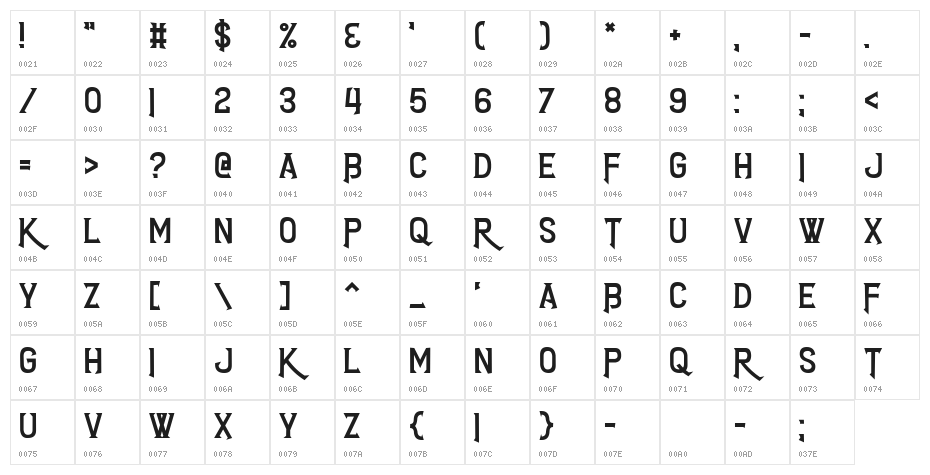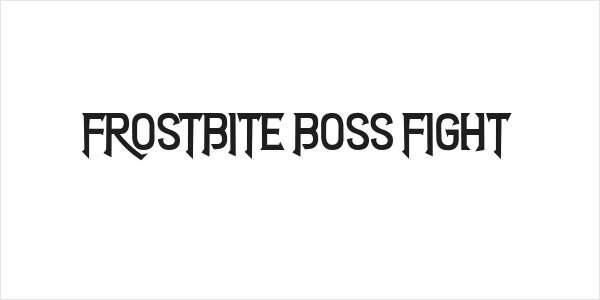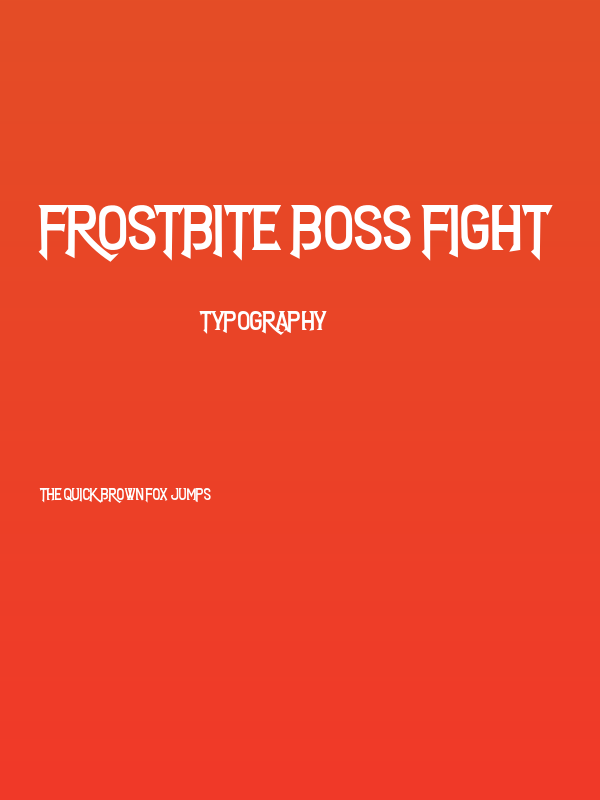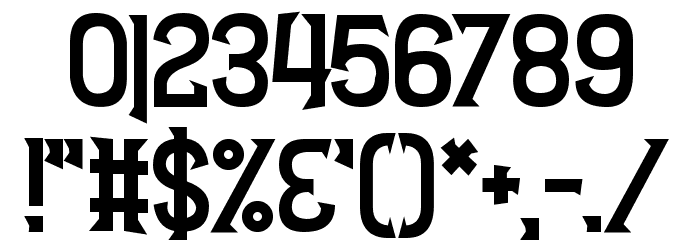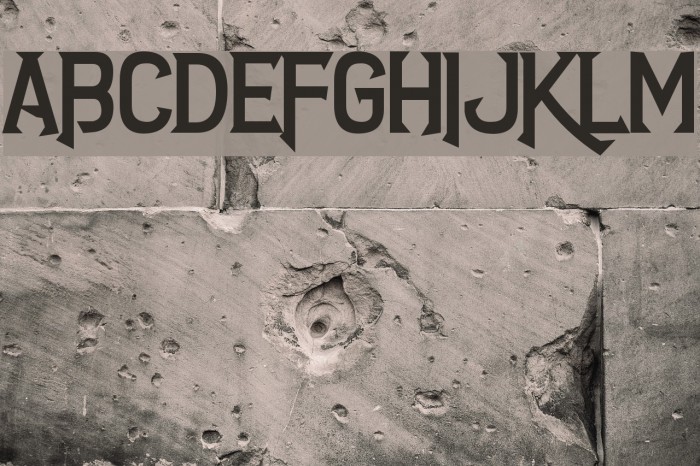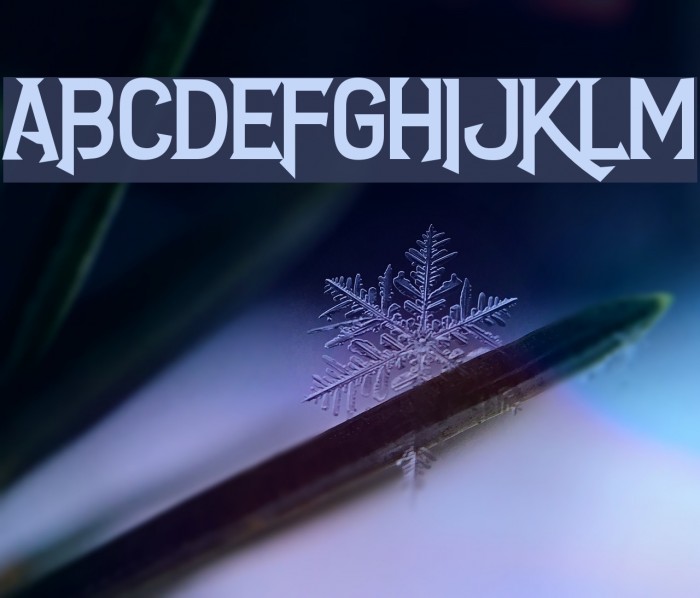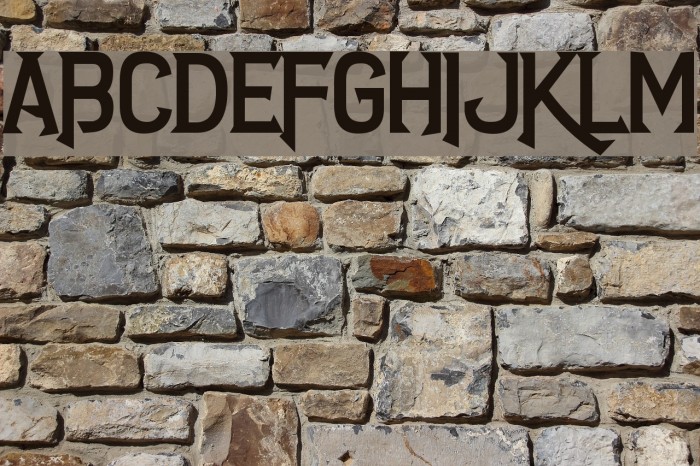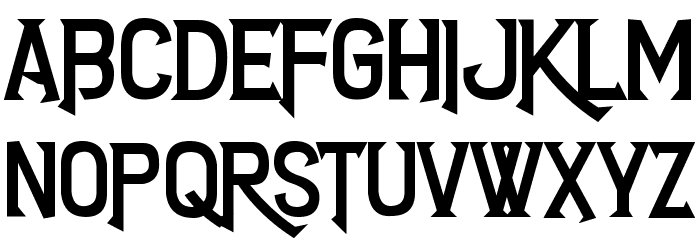
Frostbite Boss Fight Font
Frostbite Boss Fight Description
This font features a bold and dynamic style with sharp, angular edges and a strong presence. The uppercase letters are particularly striking, with unique cuts and slashes that give them a modern, edgy look. The lowercase letters maintain this boldness, ensuring consistency across the typeface. Numbers and special characters are equally distinctive, with a design that complements the overall aesthetic. The font's high contrast in stroke thickness adds to its dramatic appeal, making it ideal for attention-grabbing designs.
| Overall Style | Modern, Edgy |
| Proposed Projects | This font is perfect for projects that require a strong visual impact, such as posters, logos, video game titles, and branding materials. |